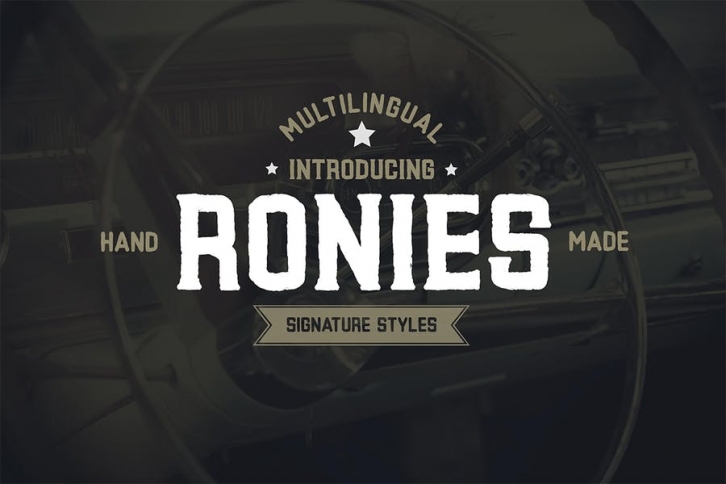
Ronies Vintage Font Download
Ronies Vintage Font
Introducing Ronies! – A vintage, retro and awesome character! With different weights, it’s perfect for magazine layouts, invitations, headers, or even large-scale artwork.